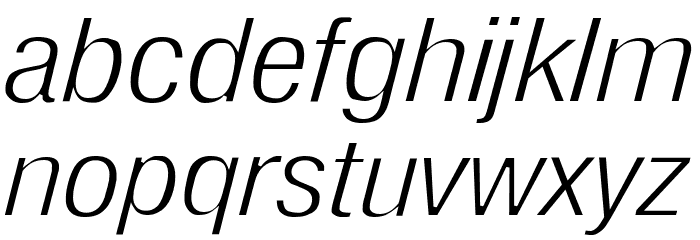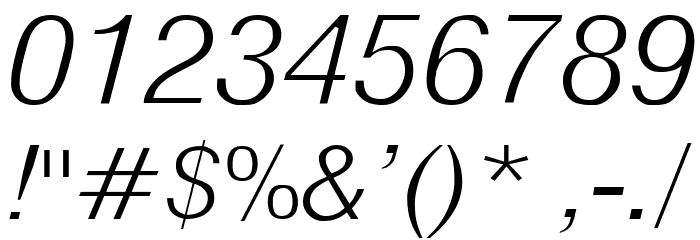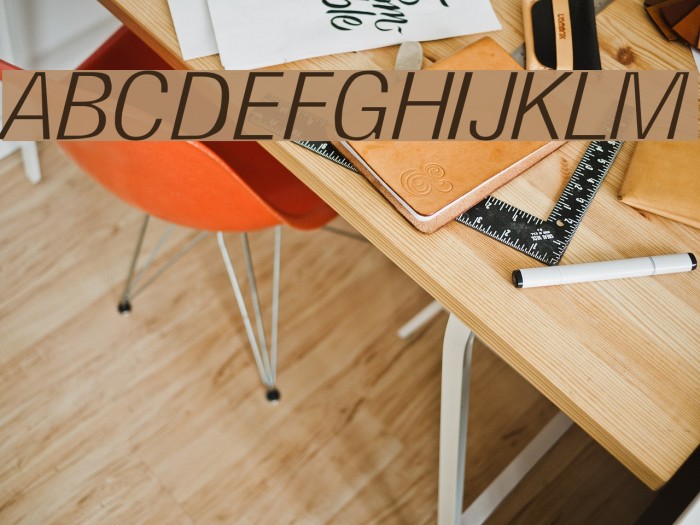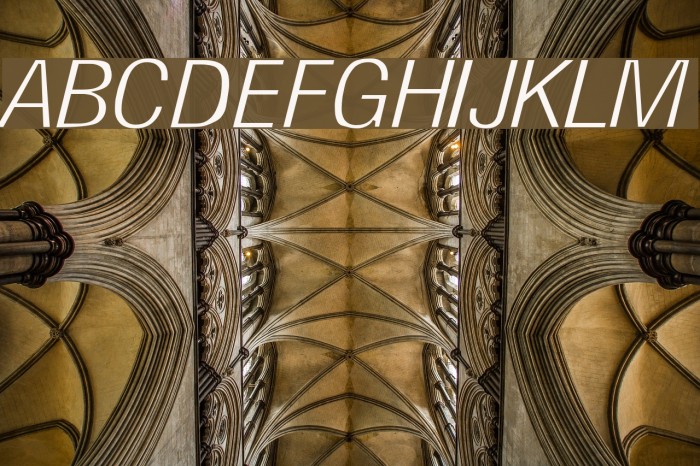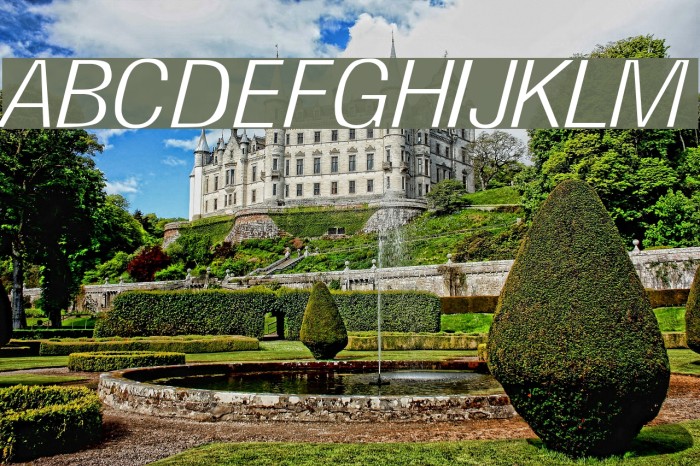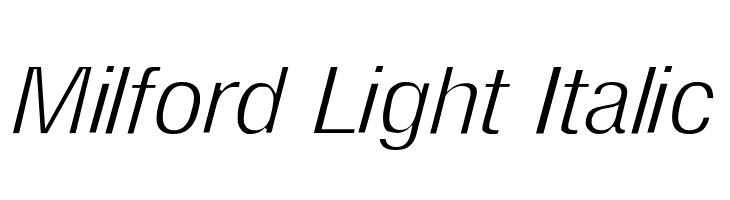
Milford Light Italic Font
This font exhibits a sleek and modern sans-serif style with a light weight and italicized form. The characters are elegantly slanted, providing a sense of motion and sophistication. The strokes are consistent and clean, contributing to a refined and professional appearance. The uppercase and lowercase letters maintain a harmonious balance, while the numerals and special characters are designed with clarity and precision. The overall design is versatile, making it suitable for a variety of applications where a contemporary and stylish look is desired.
A sleek, modern sans-serif font with a light, italicized style.
- Proposed Projects: Ideal for branding, editorial design, advertising, and digital interfaces where a modern and elegant touch is needed.